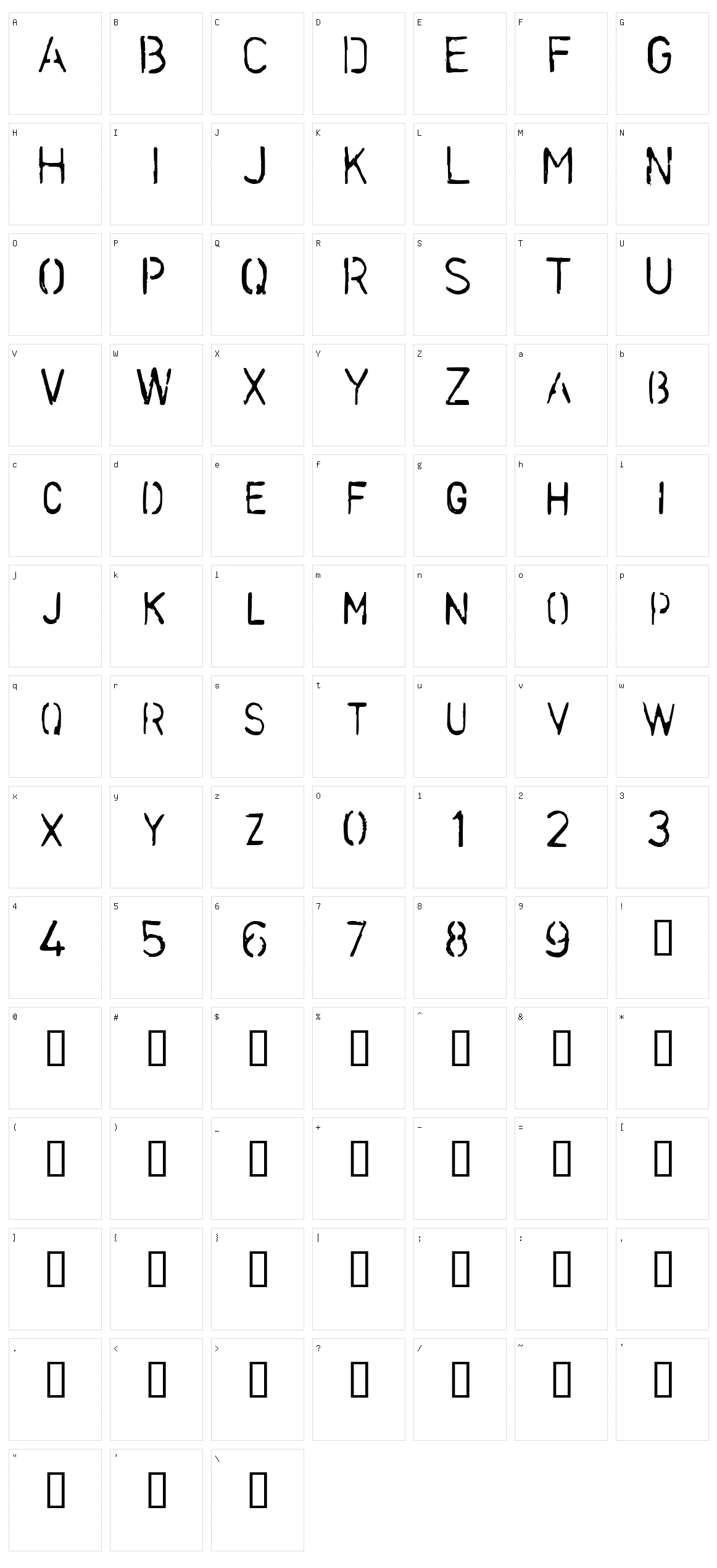
Remember those little plastic lettering stencils?
Now you can more easily make little cruddy letters with this font.
Two weights for your fonting enjoyments -- regular and extra chunky
(er, bold, that is).